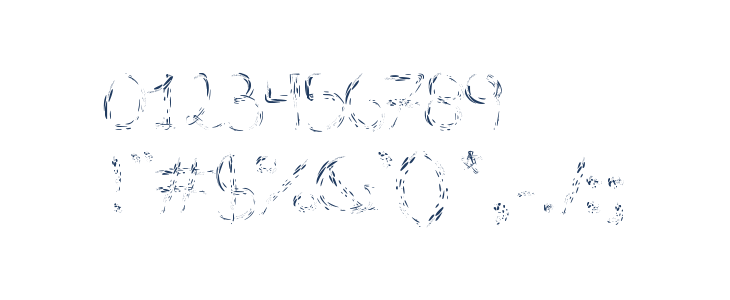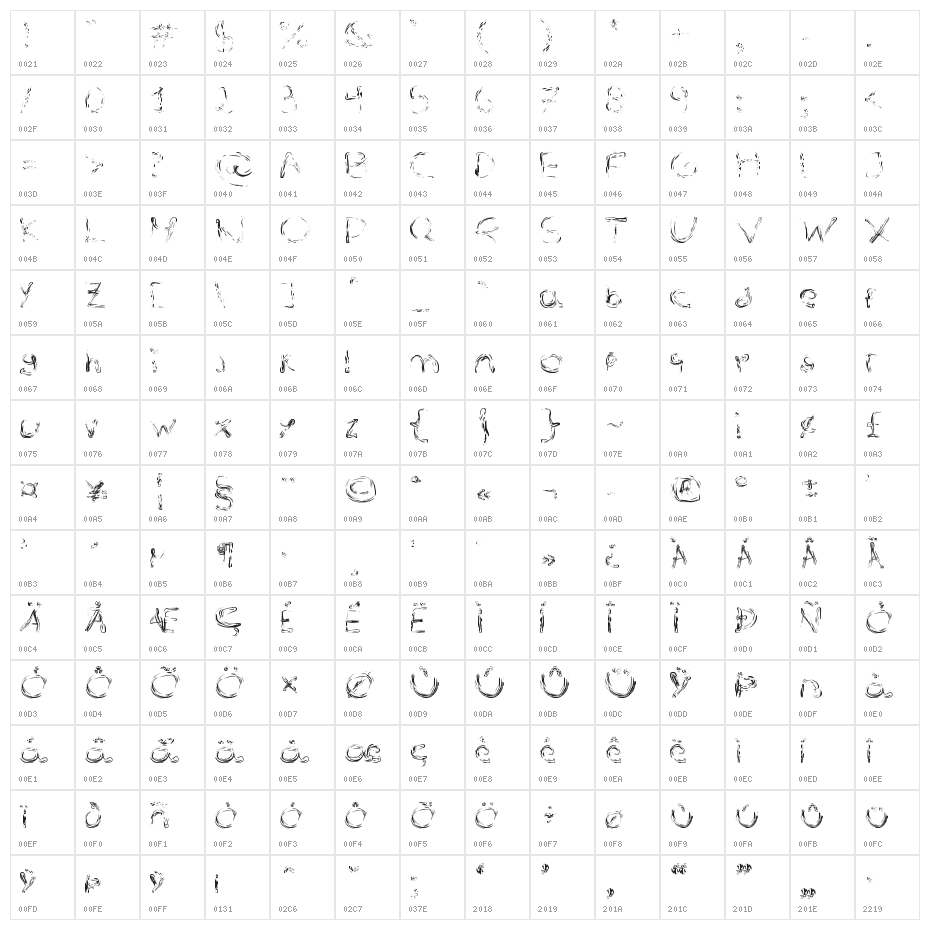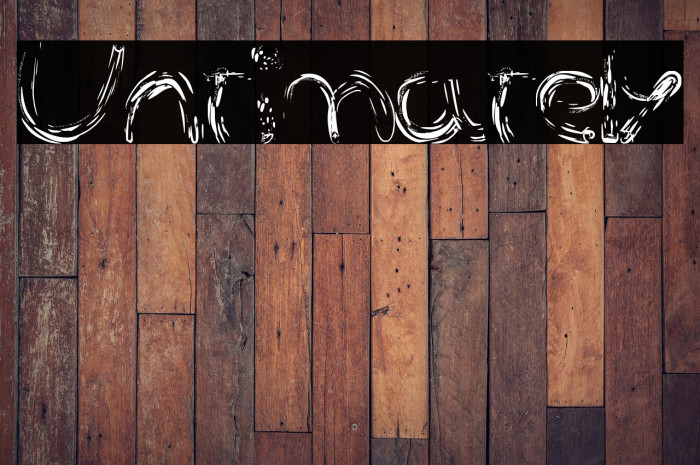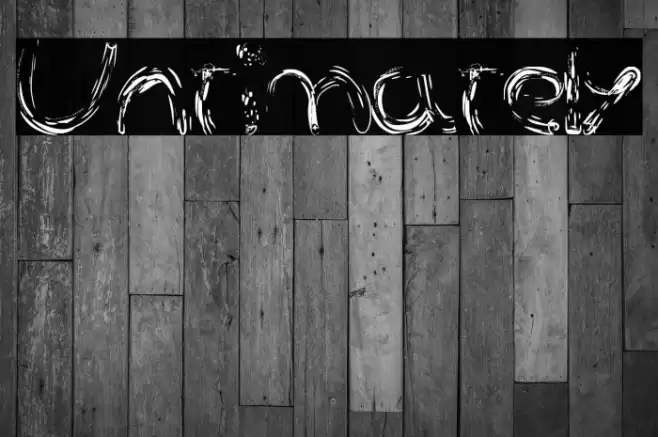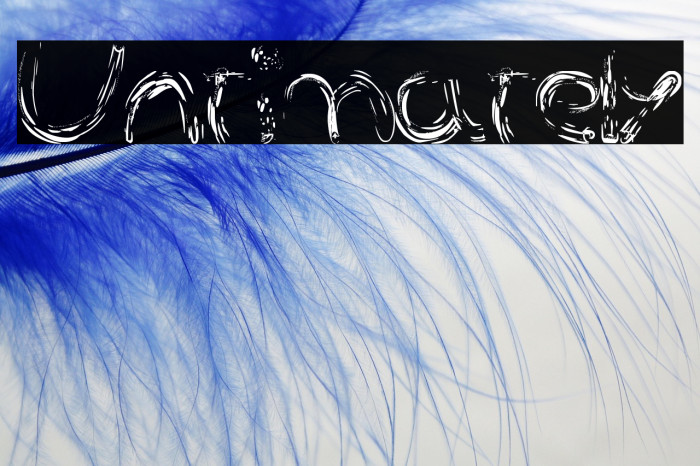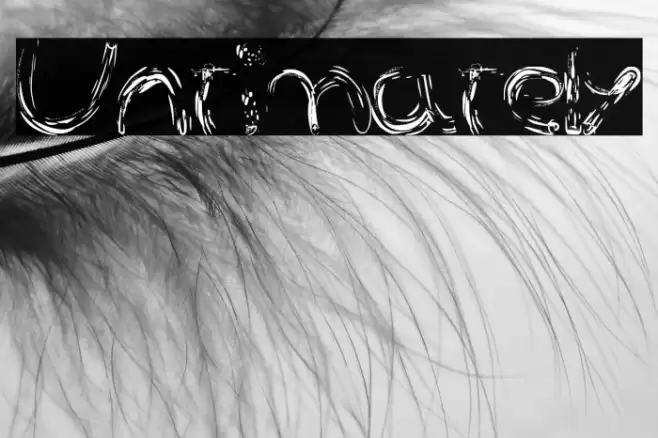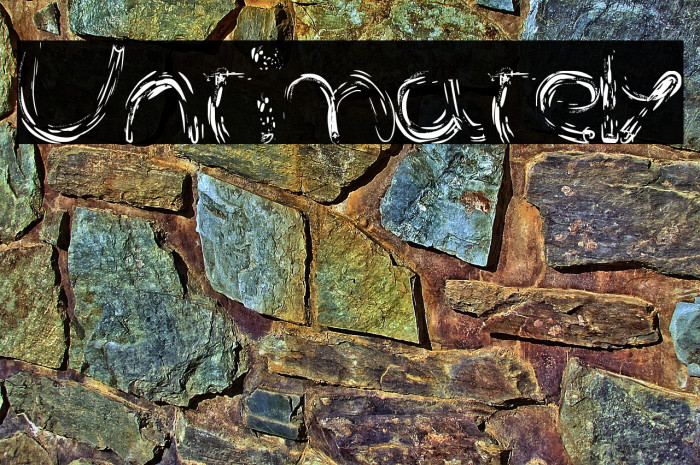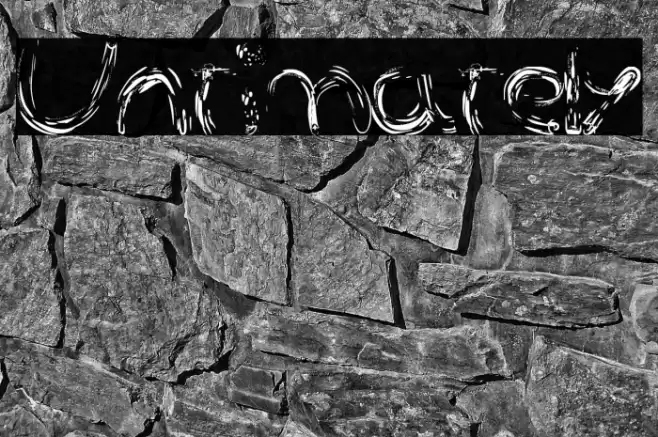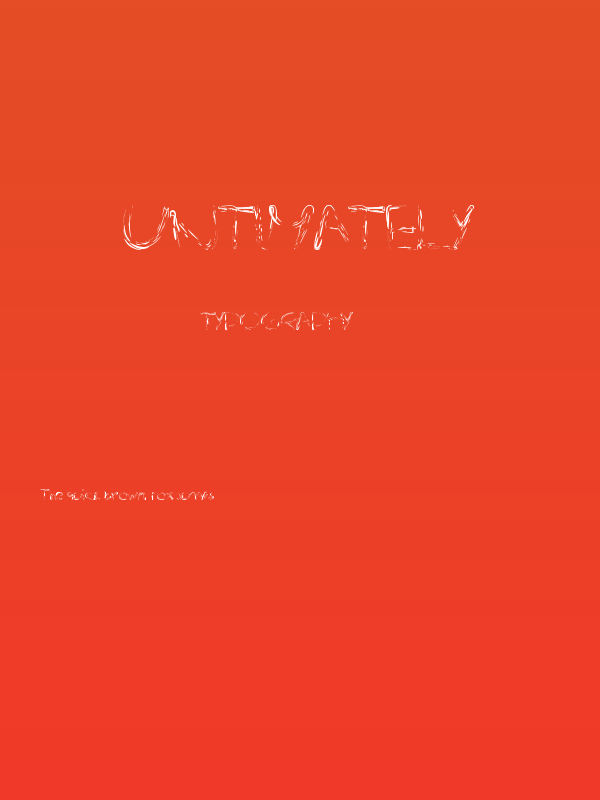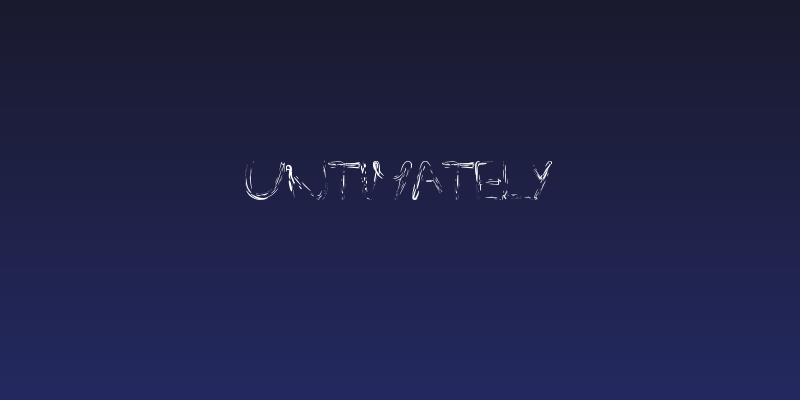
Untimately Font
Untimately Description
This font exhibits a highly decorative and artistic style, characterized by its swirling, brushstroke-like appearance. Each character is uniquely crafted with a sense of movement and fluidity, giving it a dynamic and energetic feel. The strokes vary in thickness, creating a sense of depth and texture. The uppercase and lowercase letters maintain a consistent style, with a playful yet sophisticated look. Numbers and special characters are equally expressive, ensuring a cohesive design throughout. This font is ideal for projects that require a bold and artistic statement.
| Use Case | Logos, Posters, Artistic Designs |
| Proposed Projects | Ideal for artistic projects, branding, posters, and any design requiring a bold, expressive typeface. |